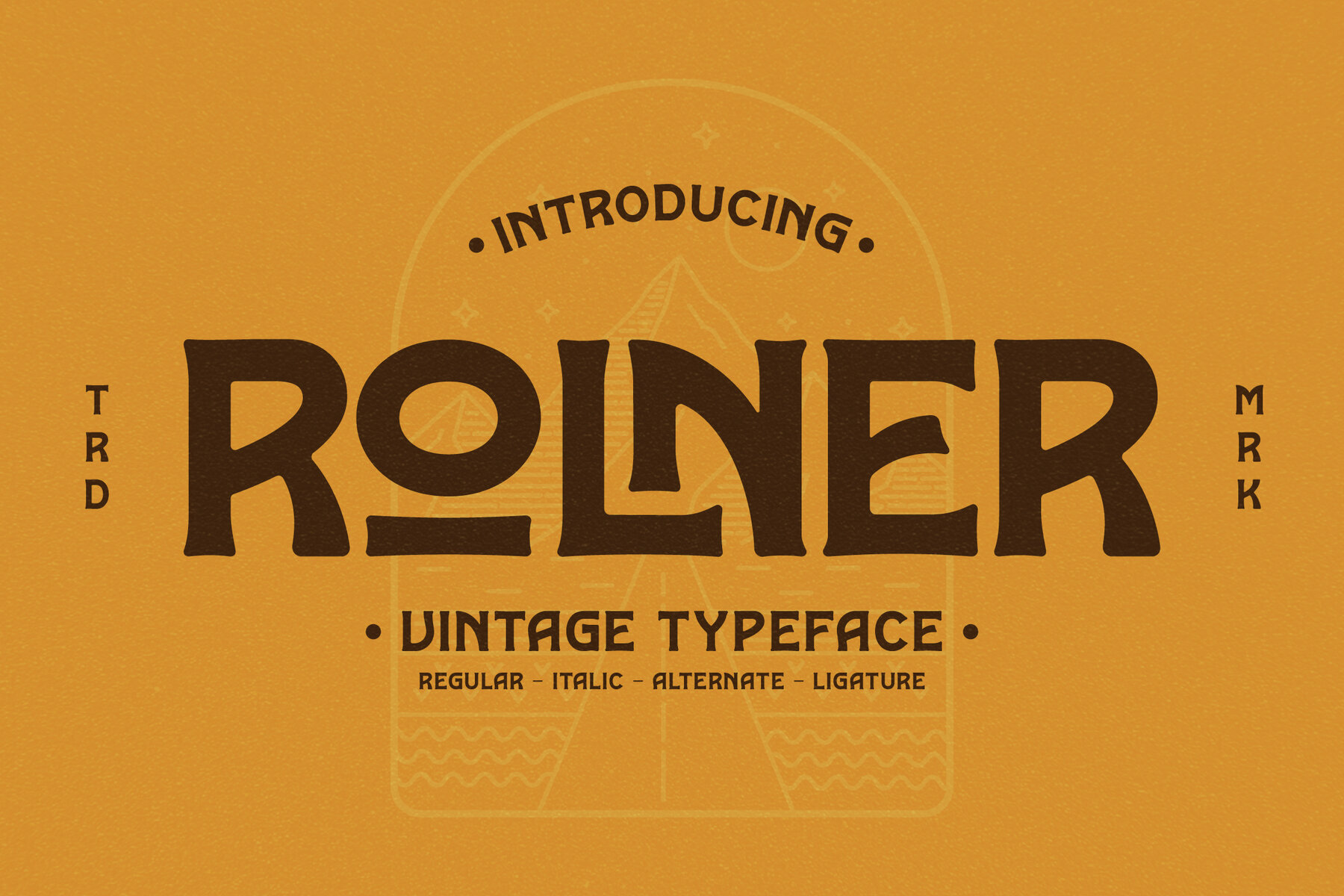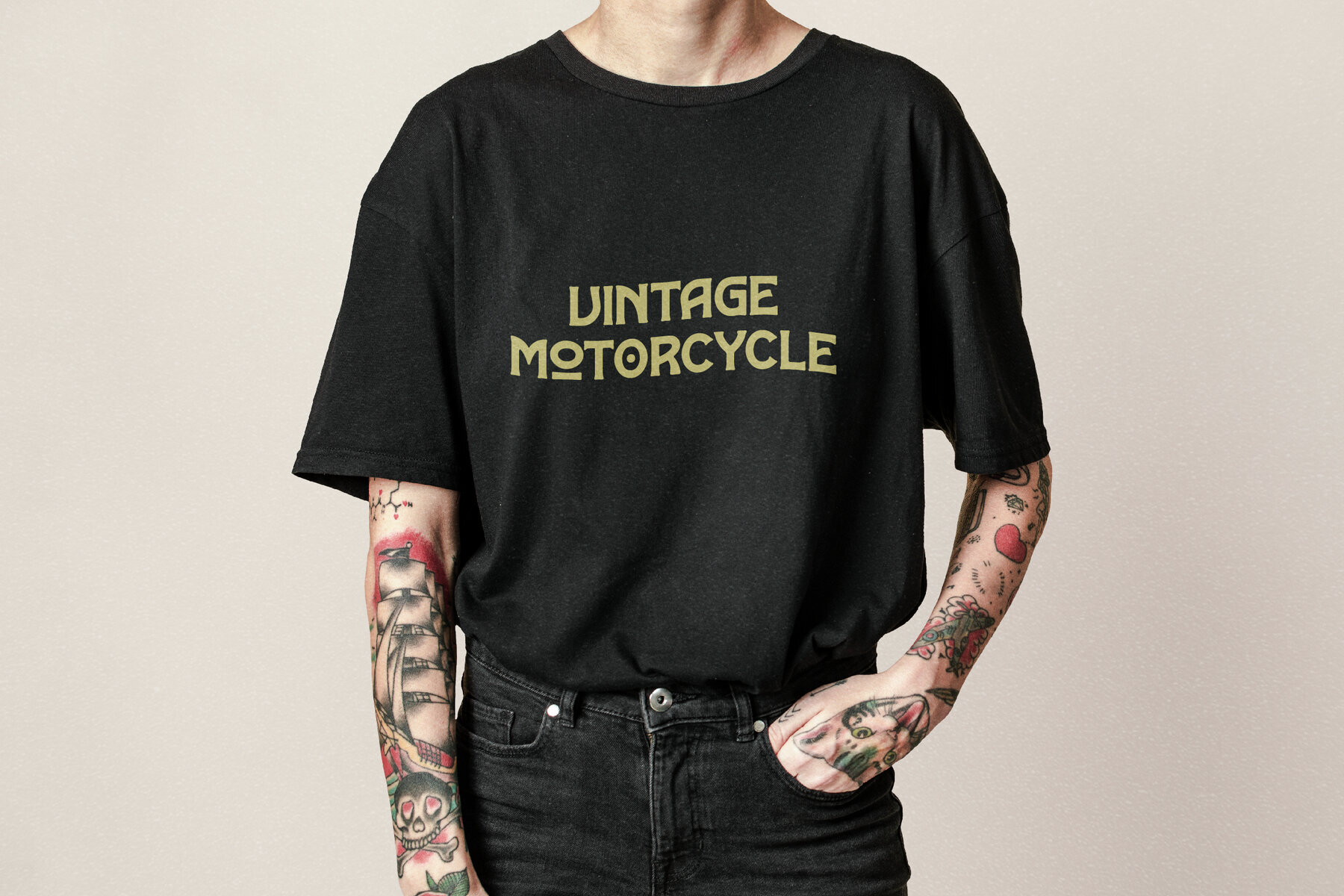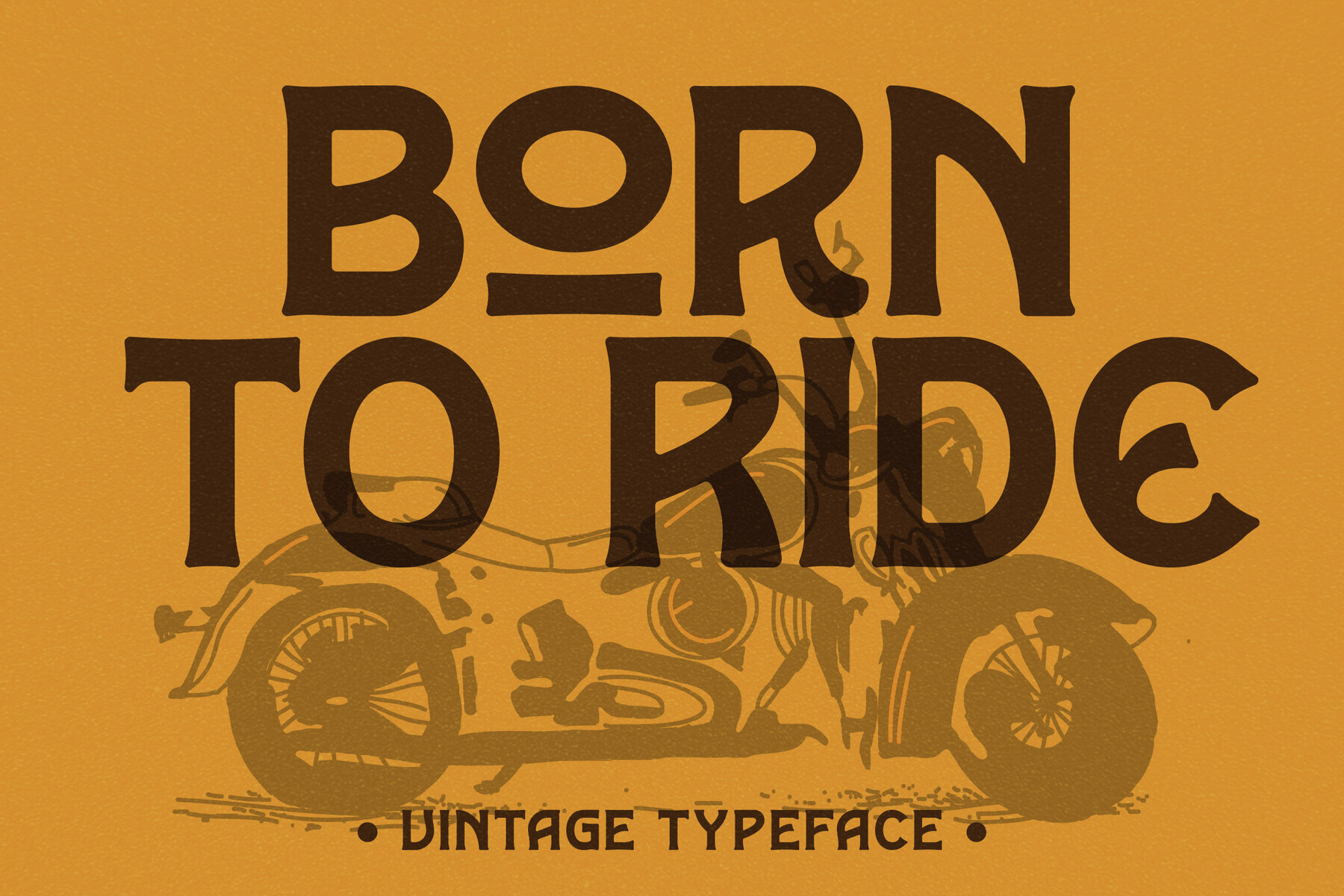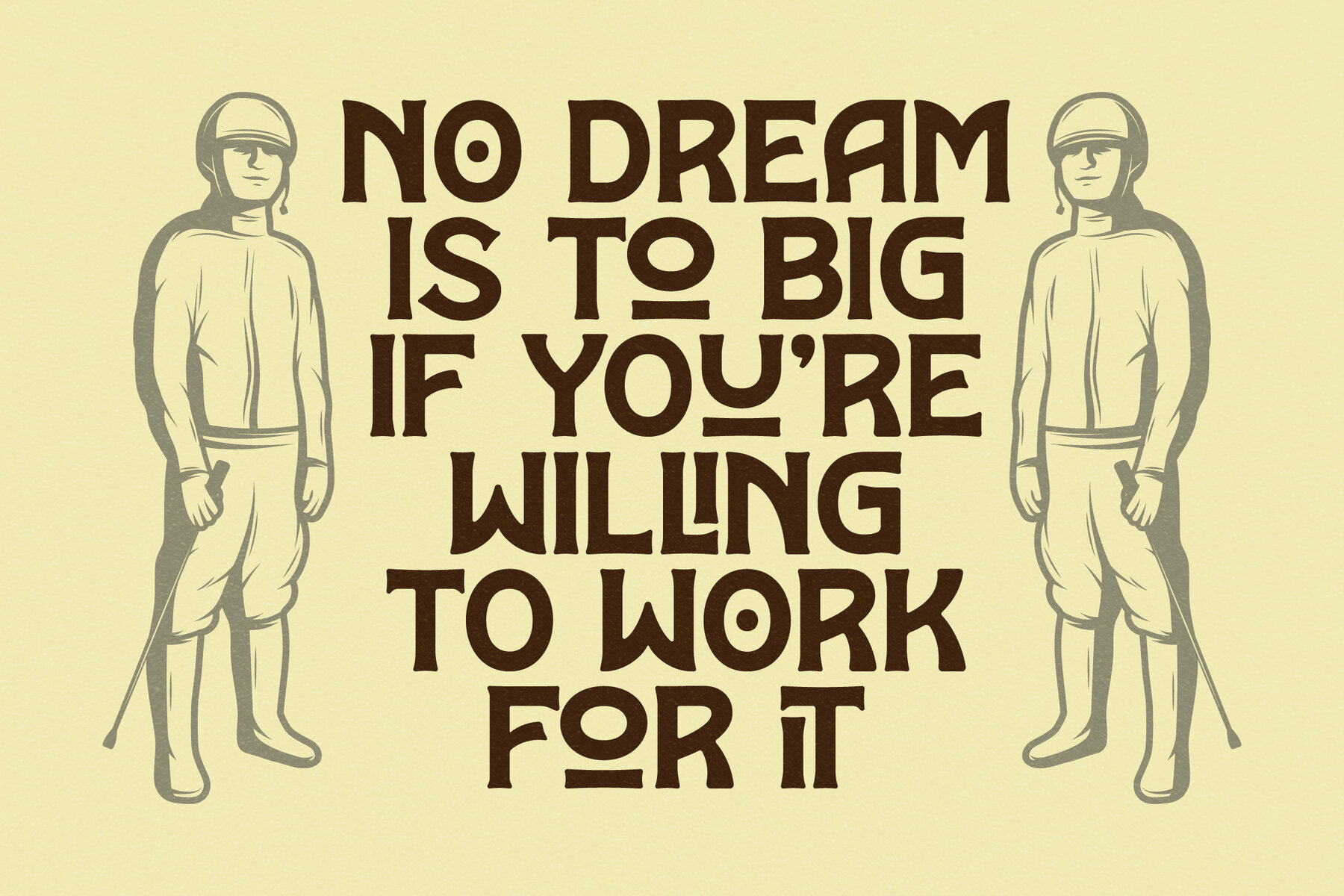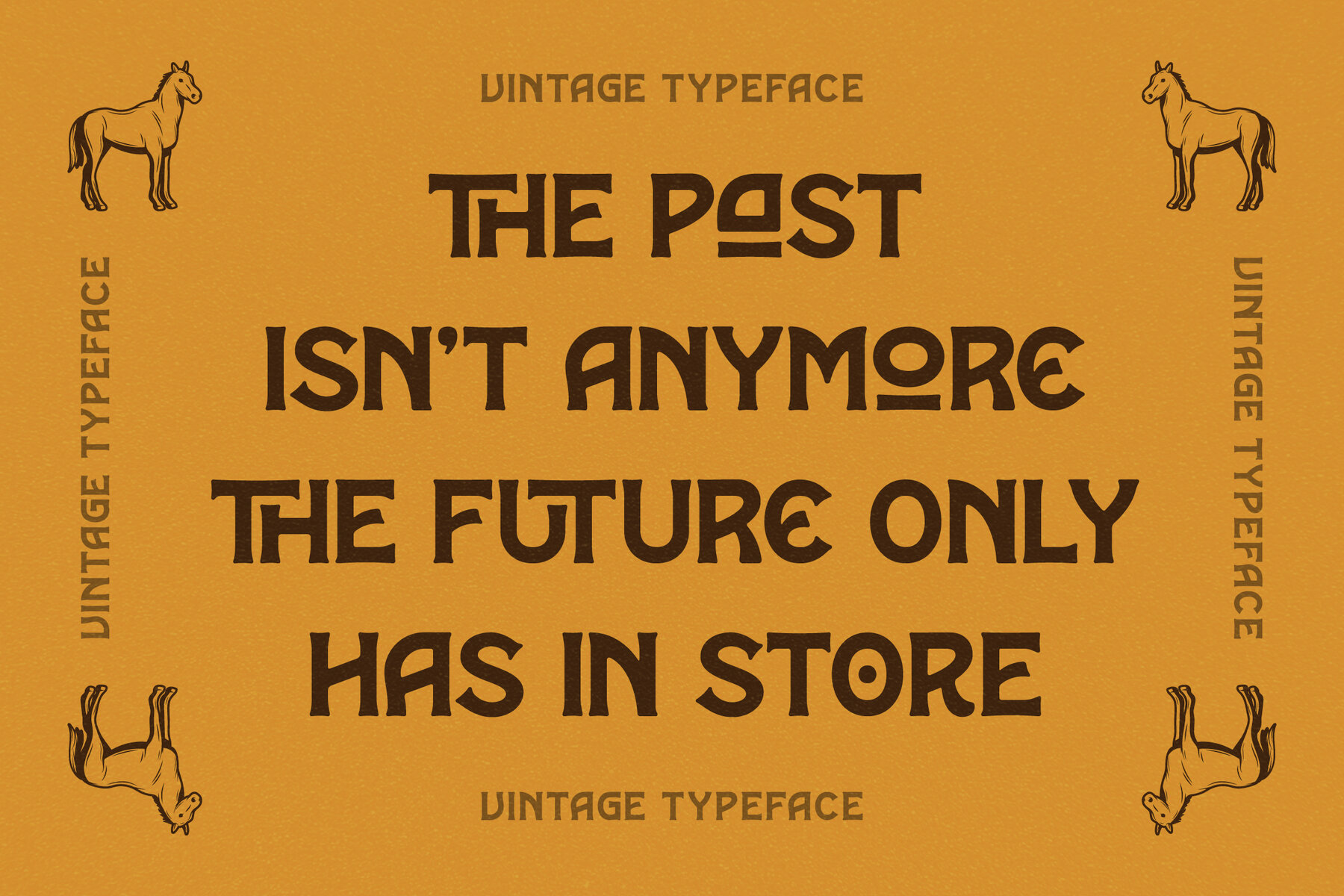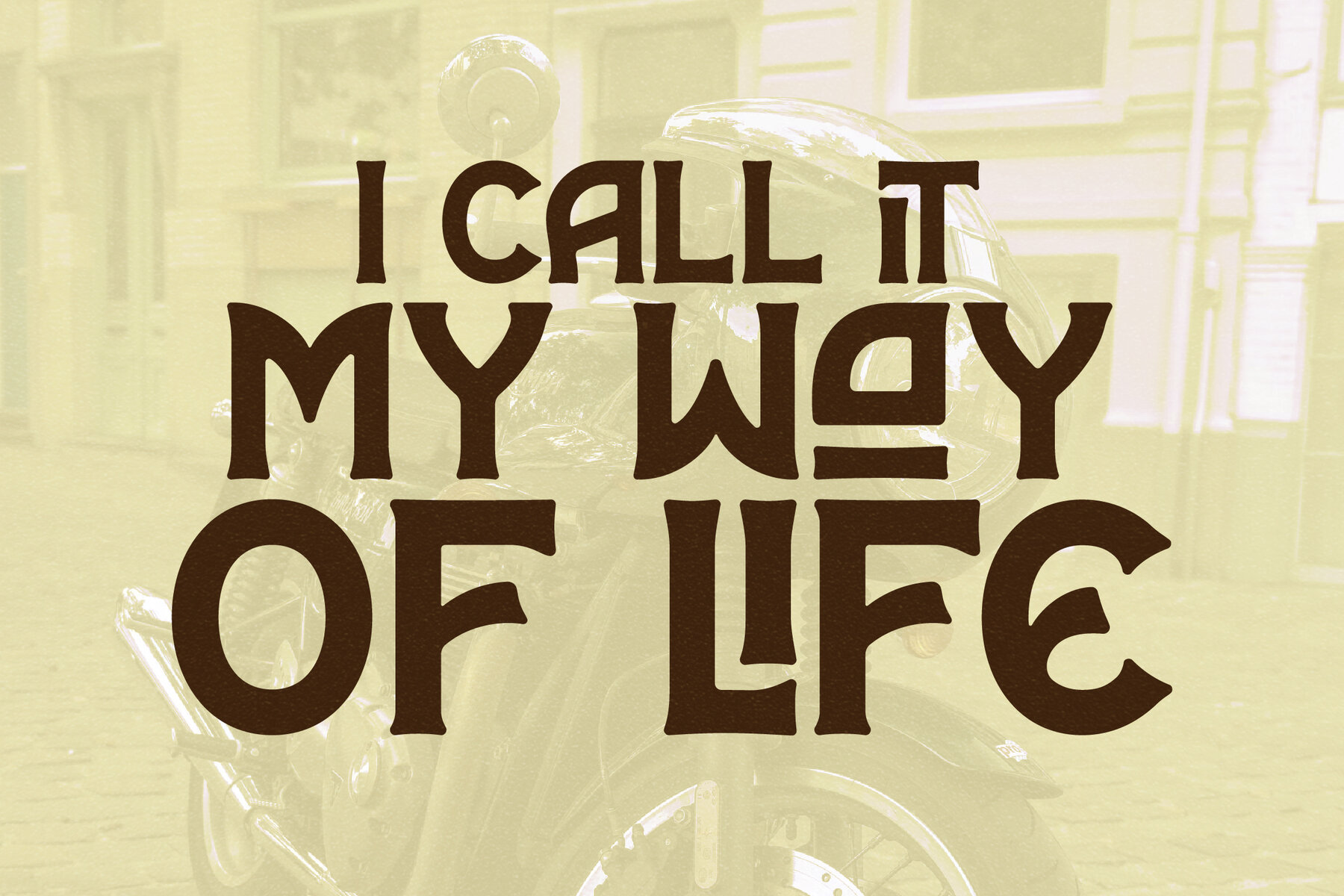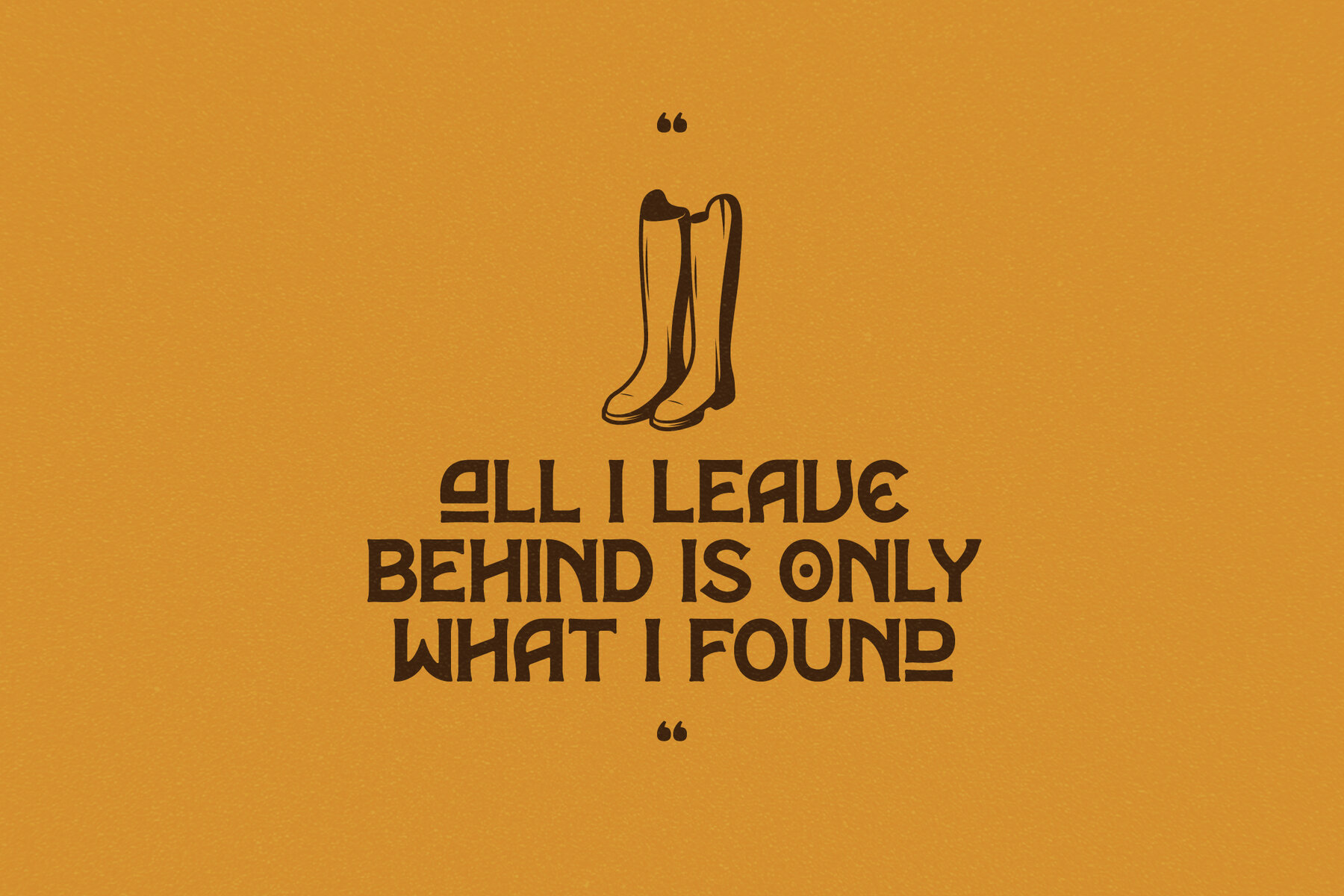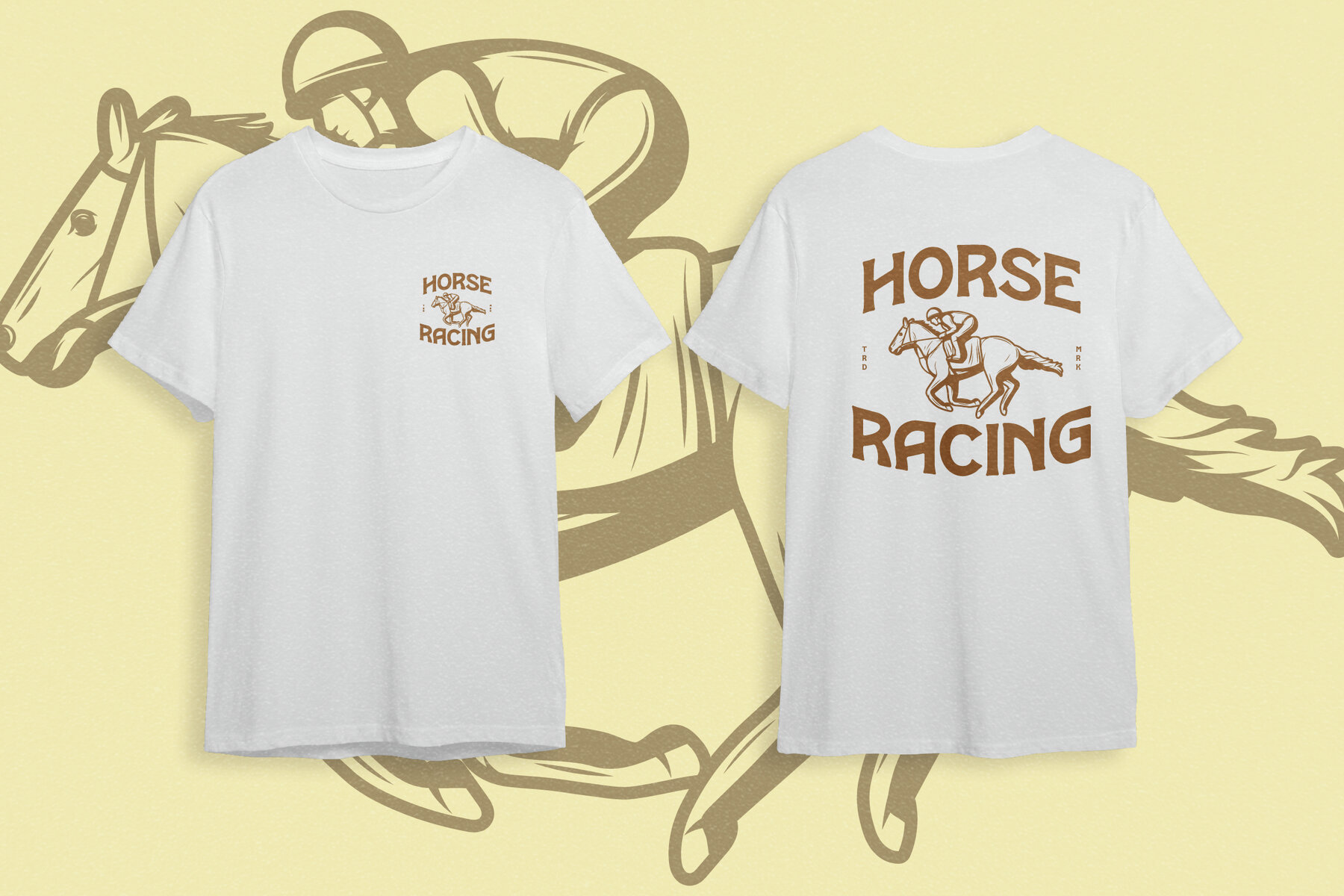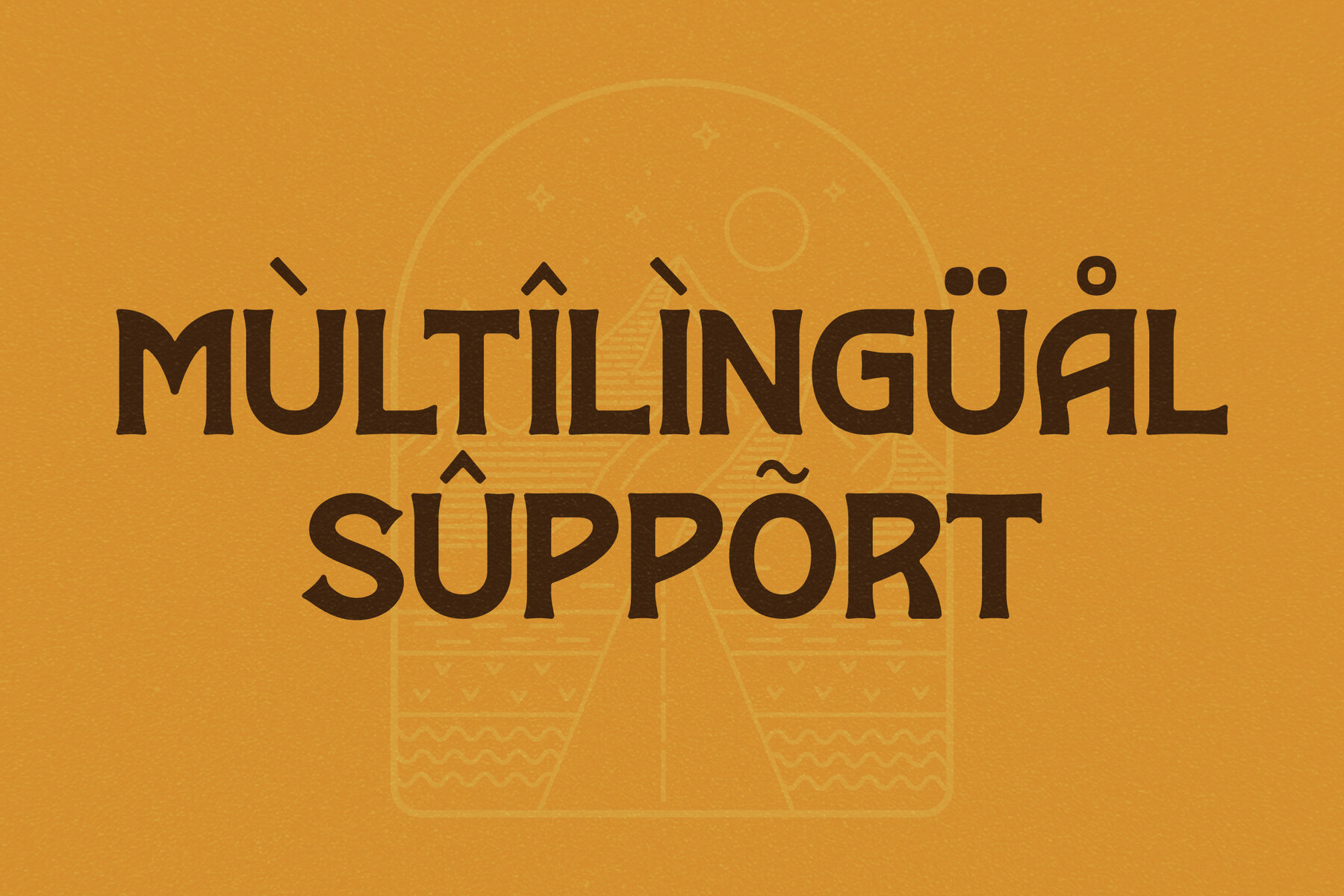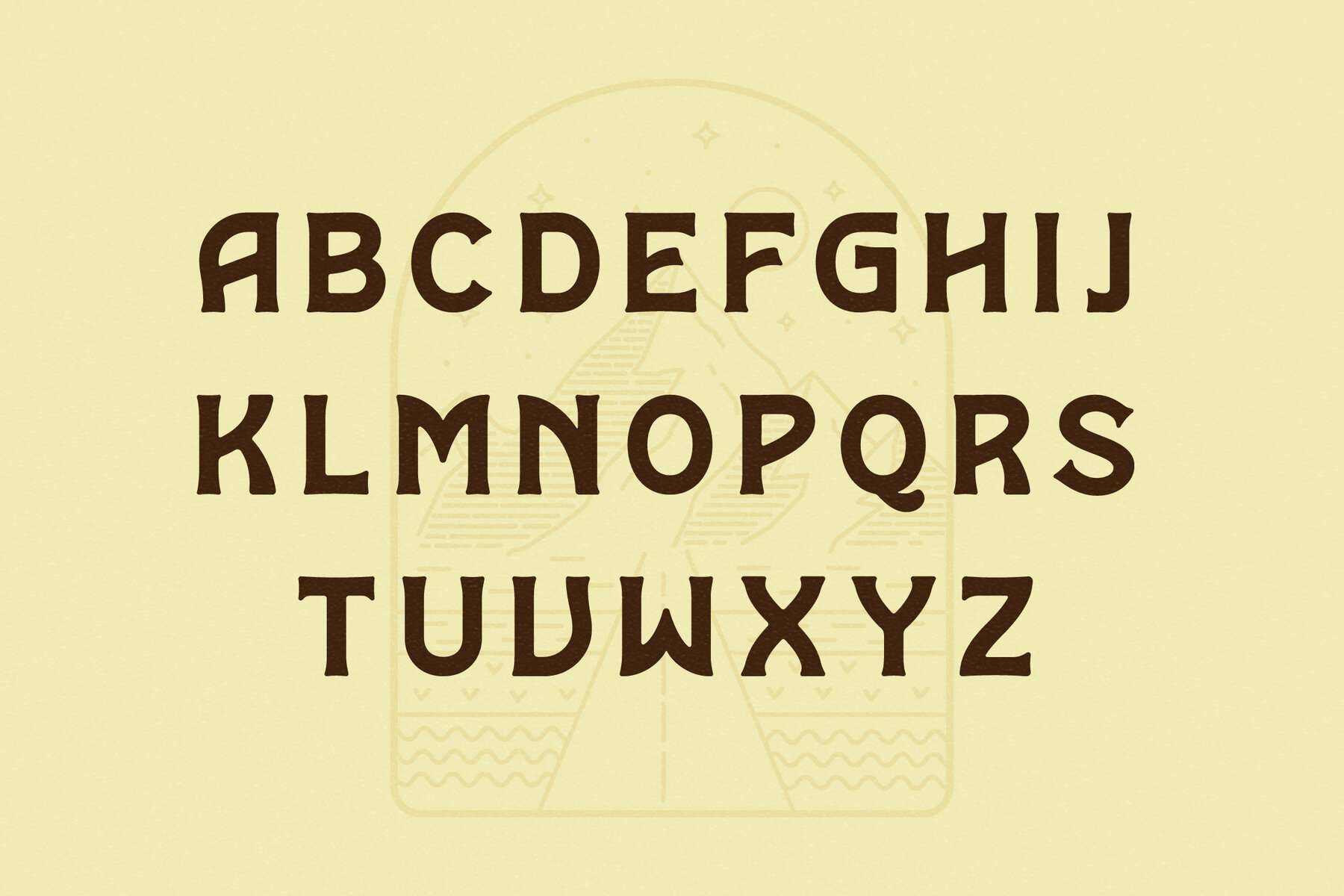
ROLNER Font
Discover the ROLNER typeface, a distinctive serif font that seamlessly combines classic elegance with a modern edge. Designed with a unique style, ROLNER is ideal for crafting luxurious logos, captivating book or movie titles, sophisticated fashion brands, and eye-catching magazine covers. Whether you're creating clothes labels, artistic lettering, or inspiring quotes, ROLNER adapts beautifully to elevate your design projects.ROLNER Typeface: A Blend of Timeless Elegance and Modernity